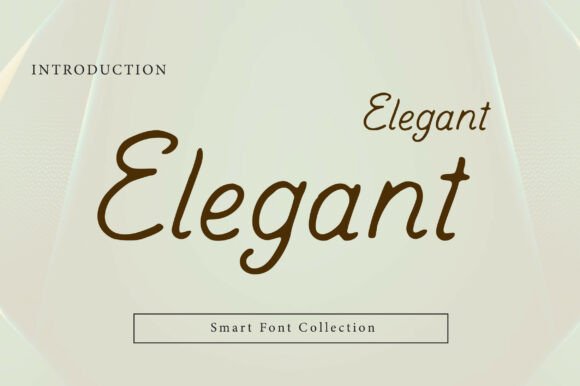
11 Elegant Script Fonts for Signature Branding & Luxury Design
1. Elegant Signature Script Font
11 Elegant Script Fonts for Signature Branding & Luxury Design
When I first came across Elegant, I was immediately struck by its fluid rhythm and sophisticated personality. As someone who spends hours hunting for the perfect typography, I can tell you that finding a script font that balances readability with high-end flair isn’t always easy. This one feels like a natural extension of a designer’s hand, making it an absolute “must-have” for your creative toolkit.
Whether you are looking to elevate a luxury brand identity or add a personal touch to wedding invitations, this script font brings a level of grace that standard typefaces just can’t mimic. It’s my go-to recommendation for:
• Signature Branding: Giving logos a bespoke, high-end feel.
• Stationery: Creating timeless watermarks and business cards.
• Special Events: Adding a romantic, handcrafted vibe to invitations and menus.
It’s more than just a set of characters; it’s a design statement that turns a simple layout into a piece of art.
4. Elegant Modern Handwritten Script font
In the world of typography, finding a script font that perfectly balances charm with professional polish can feel like a daunting task. That is why I am so excited to recommend Elegant, a smooth and stylish handwritten typeface that honestly lives up to its name. It features flowing curves and soft strokes that instantly bring a sense of beauty and sophistication to any layout. As a designer, I’m always looking for that “luxurious handwritten feel,” and this font delivers a natural rhythm that feels both personal and incredibly refined.
This script font is remarkably versatile, making it a dream for both print and digital design projects. I find it works best for:
• Premium Branding: Perfect for signature logos, beauty branding, and boutique packaging.
• Special Occasions: Creating romantic wedding invitations and high-end greeting cards.
• Digital Content: Elevating social media quotes and Instagram posts with a high-end signature style.
• Product Design: Adding a warm, classy touch to fashion labels and elegant product packaging.
5. Coffee Elegant Script Font
As the holiday season approaches, I’m always on the hunt for a typeface that can instantly transform a project into something magical, and Coffee Elegant is exactly that find. This festive and merry script font perfectly captures the holiday spirit with its decorative elements and whimsical flair. It’s a designer’s dream for adding a touch of enchantment and a cheerful, nostalgic ambiance to any seasonal design.
I highly recommend this script font for anyone looking to make their typography shine in the following areas: